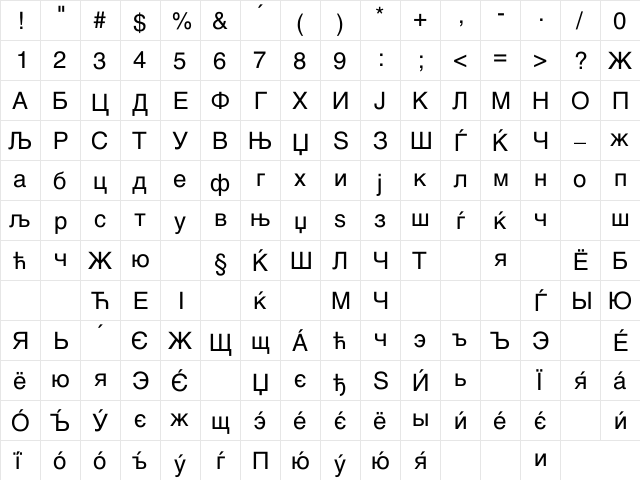
MKDHELVA Regular
Design Context for MKDHELVA Typeface
MKDHELVA takes a measured approach to typography — its balanced proportions and neutral character make it a reliable workhorse for both digital and print work.